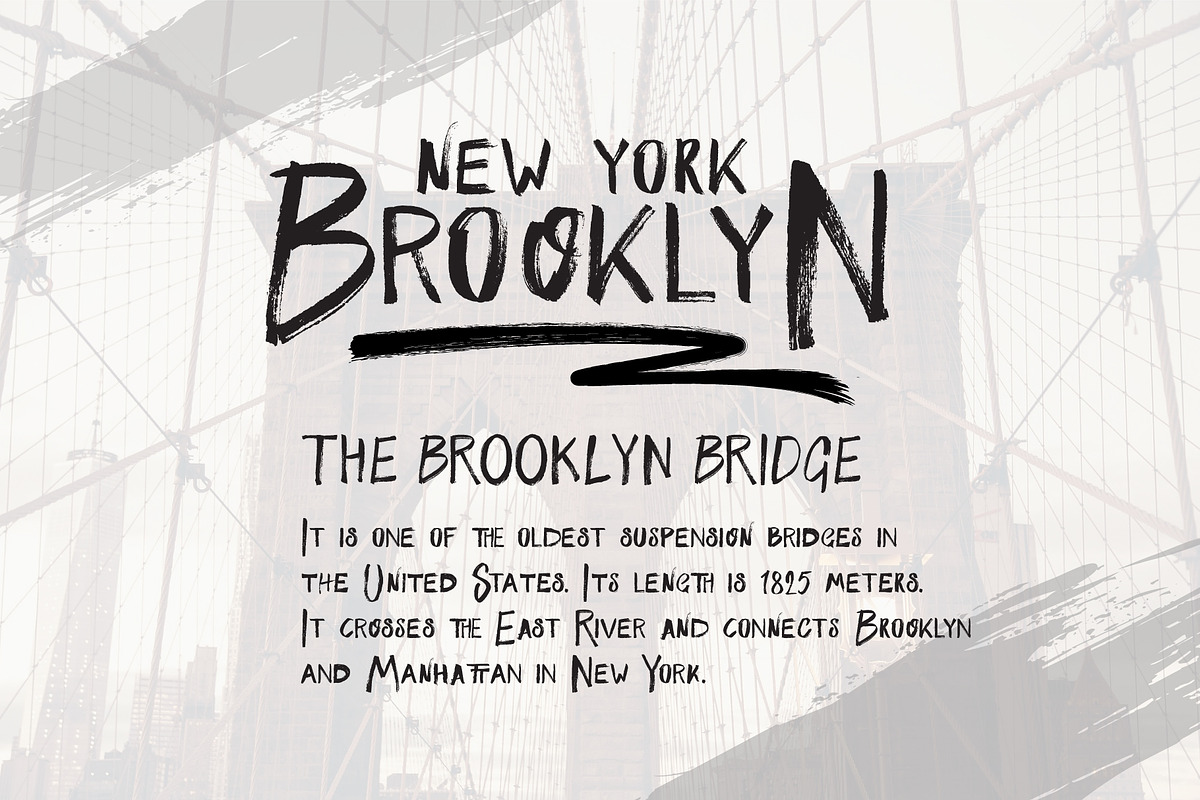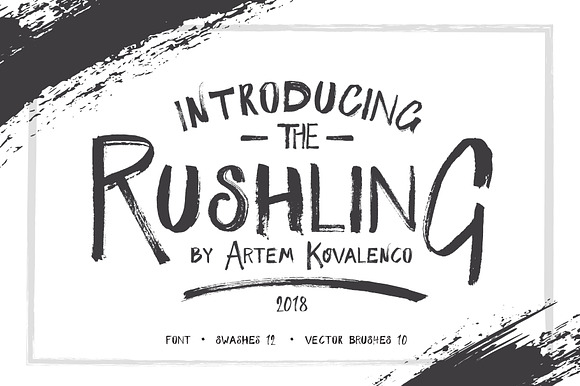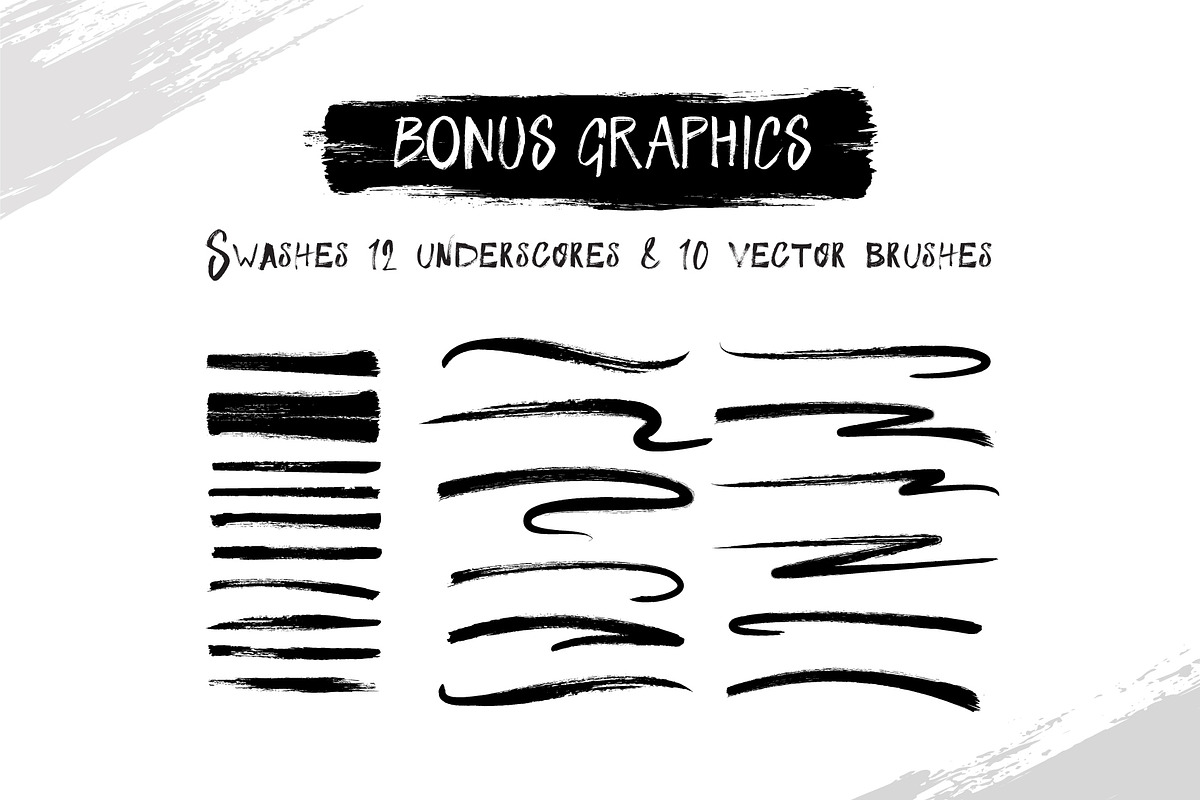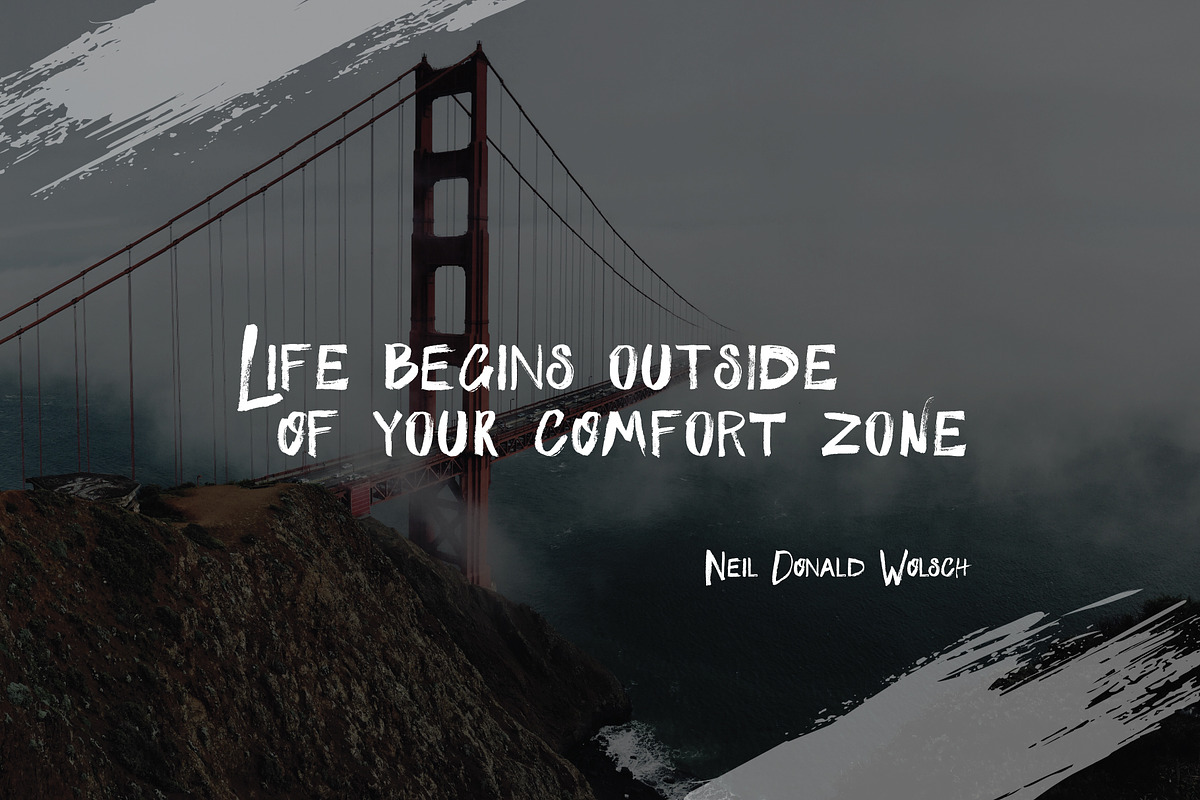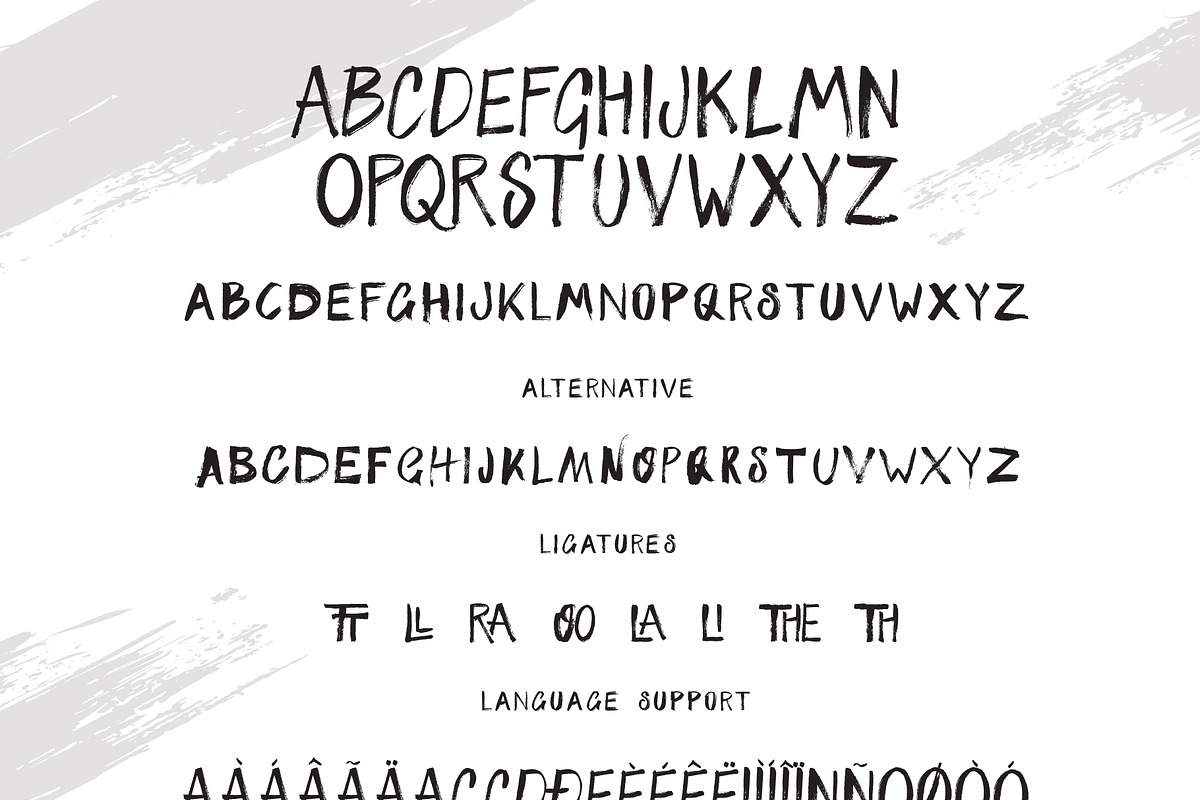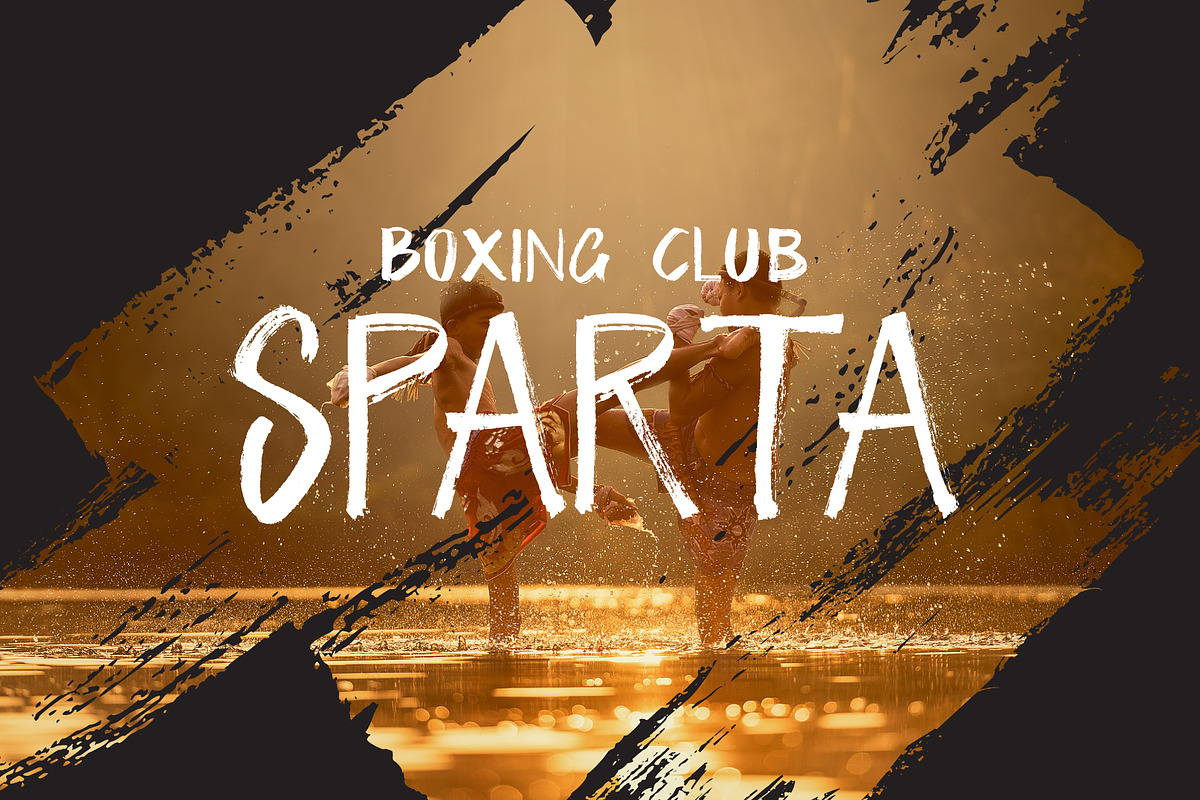
RUSHLING textured font +Vector bonus
New textured font of the Rushling is perfect for decorating your product headers. Ideal for decoration of your hipster and modern brutal design products. Hand-drawn letters font also works well in logos, posters, booklet, flyer, gift certificate. Together with the Rushling font, there is a set of cool vector graphics in the hipster style. Easy to use graphics and idyllic combining with the font will allow you to fulfill any goals and create a memorable product.
Lowercase letters a-z
Stylistic alternative letters a-z
AÀÁÂÃÄÅCÇDÐEÈÉÊËIÌÍÎÏNÑOØÒÓÔÕÖUÙÜÚÛWẂŴẄẀYÝŸỲŸÆŒßÞþ
Bonus vector graphics